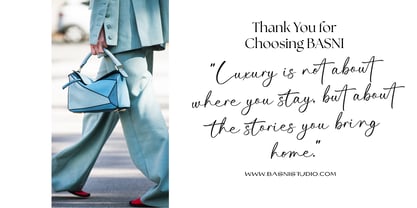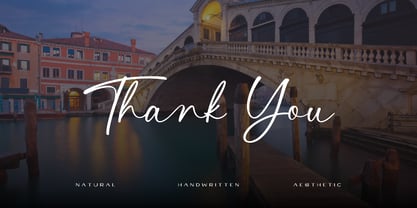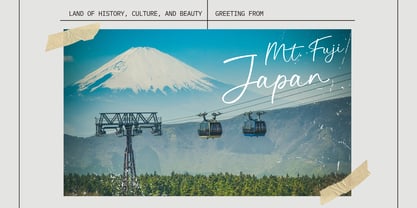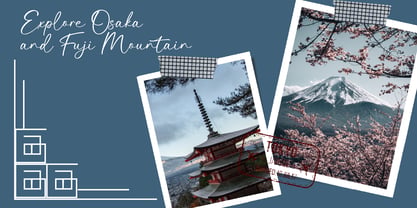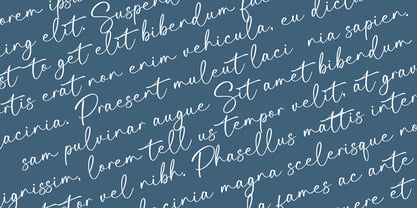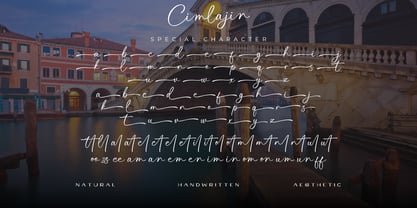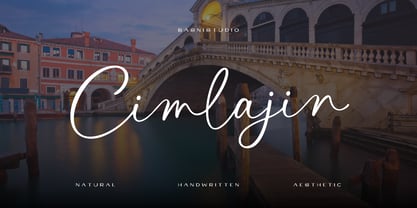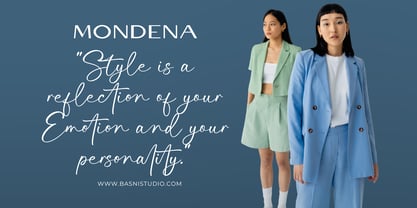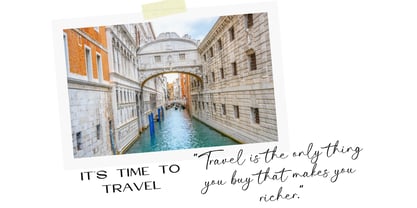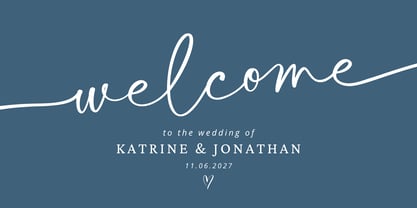
Cimlajin
par Basnistudio
La famille de polices Cimlajin a été conçue par Bery Arisandi et publiée par Basnistudio. Cimlajin contient 1 styles. En savoir plus sur cette famille
Cimlajin – Handwritten Font
Handwritten Font Created with real pen strokes for a natural look and casual touch to everything from branding and social media to invitations and packaging.
Natural & Bold– Perfect for tagline, quotes, greeting cards, and more
Authentic Handwritten Feel – Created with real pen strokes for a natural look
Whether you’re building a powerful brand identity or crafting a standout design,
Cimlajin – Handwritten Font Created with real pen strokes for a natural look gives you the creative edge you need.
• Uppercase & lowercase letters
• Swashes
• ligatures
• Numbers & punctuation
• Multilingual Support ( Support for 90 languages )